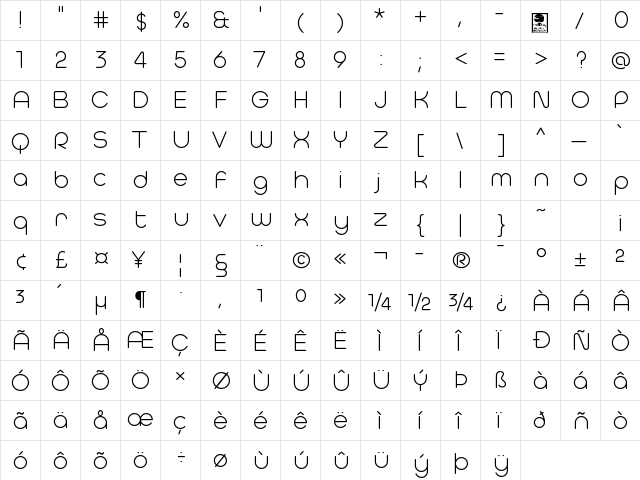
Typo Hoop Light Demo Regular
| Foundry | StudioTypo |
| Designer | Mehmet Abac |
Design Context for Typo Hoop Light Demo Typeface
Typo Hoop Light Demo offers clean, dependable letterforms without strong stylistic allegiance, making it a practical choice for designers who need flexibility. The delicate stroke weight brings airiness and refinement to layouts.